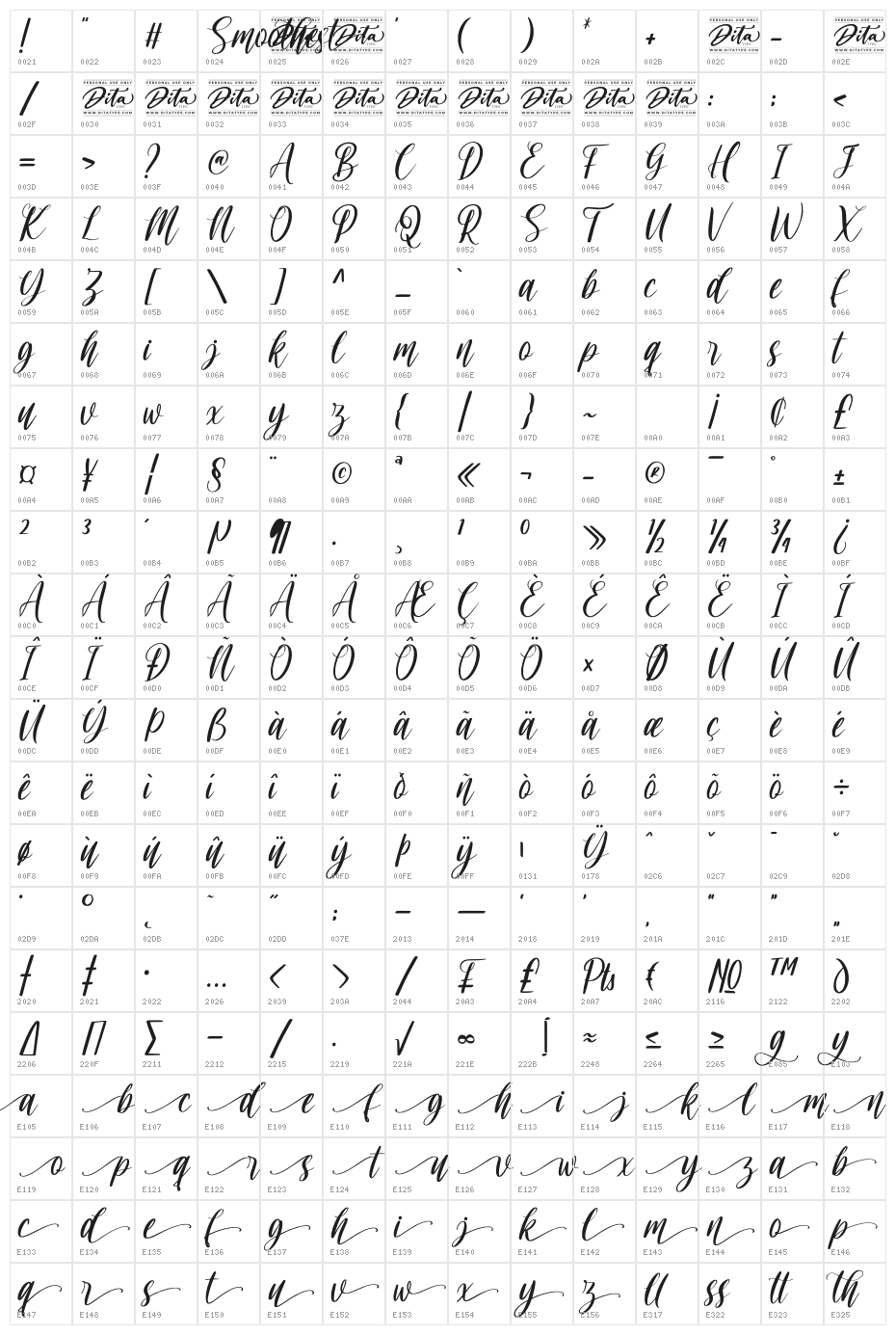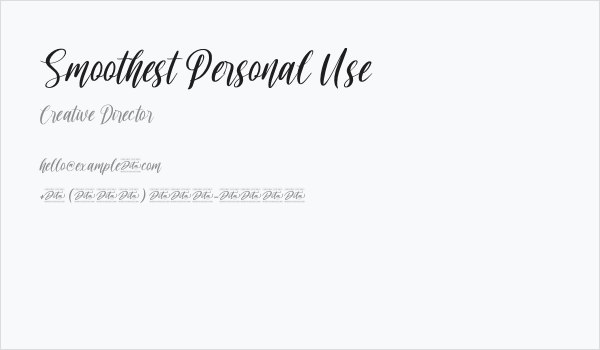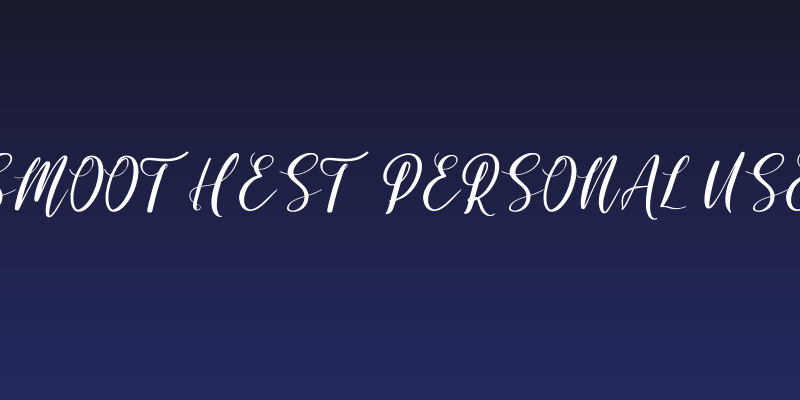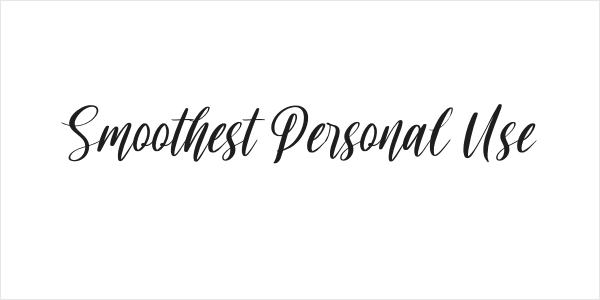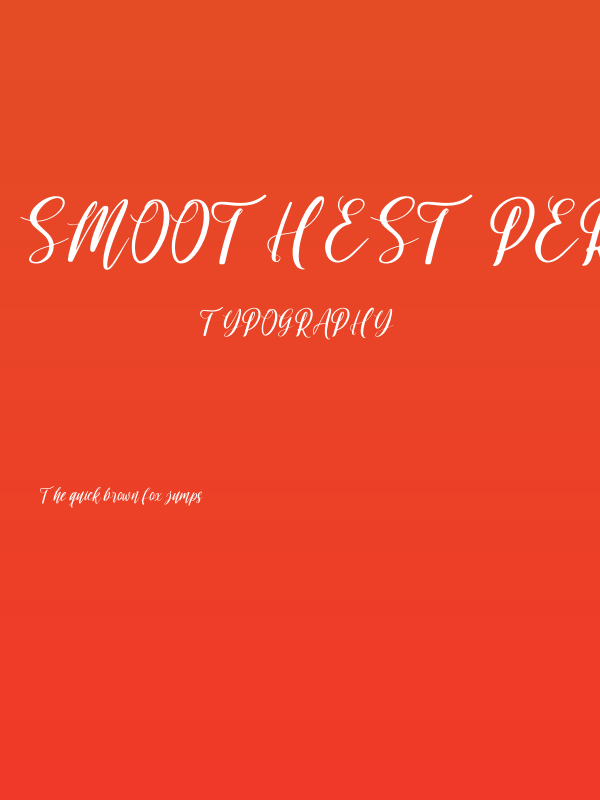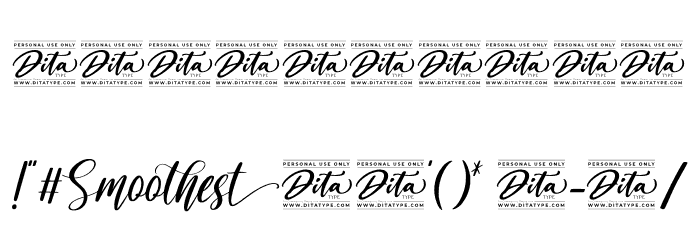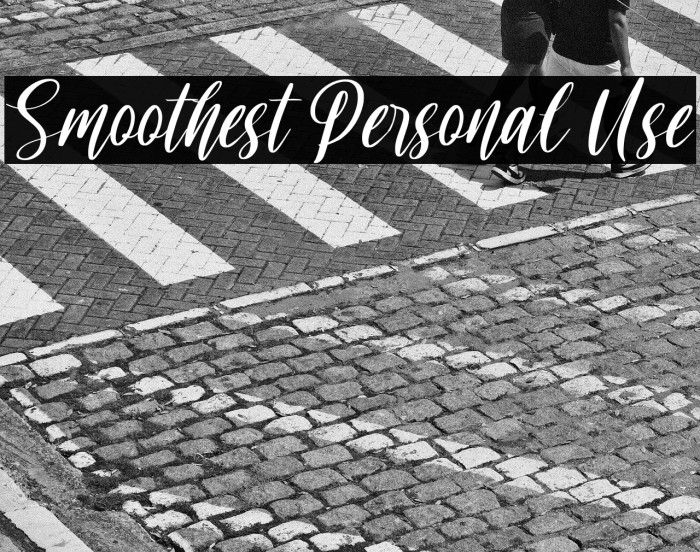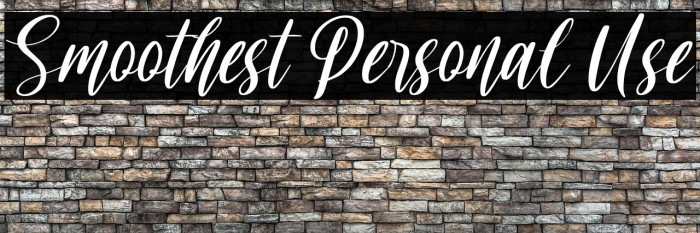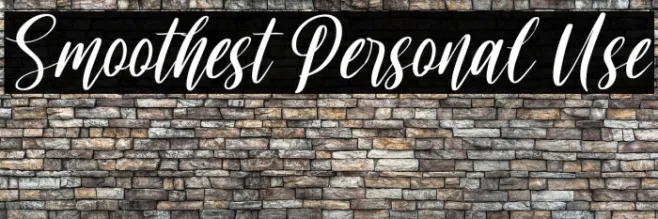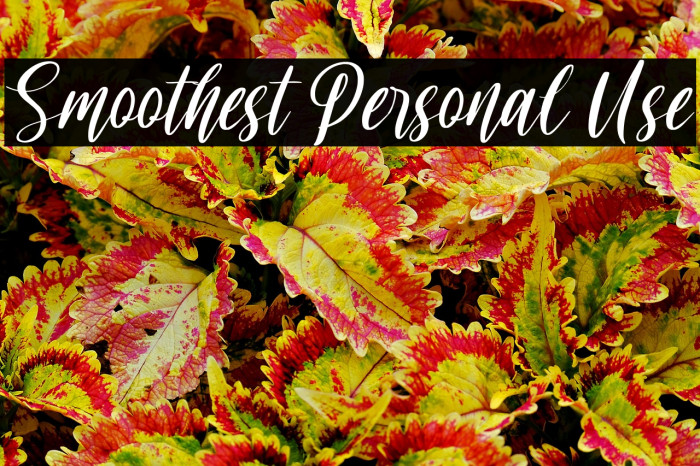
Smoothest Personal Use Font
Smoothest Personal Use Description
This font features an elegant and flowing script style, characterized by its smooth, cursive letterforms. The uppercase letters are ornate with flourishes, while the lowercase letters maintain a consistent, graceful flow. The strokes are bold and confident, creating a striking contrast between thick and thin lines. This font exudes a sense of sophistication and charm, making it ideal for projects that require a touch of elegance. The special characters are designed with the same fluidity, ensuring a cohesive look across all text elements.
| Proposed Projects | Ideal for wedding invitations, branding, greeting cards, and elegant logo designs. |